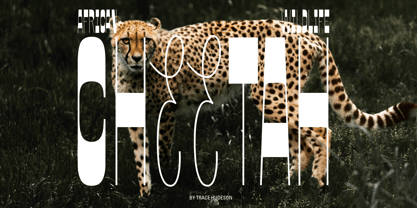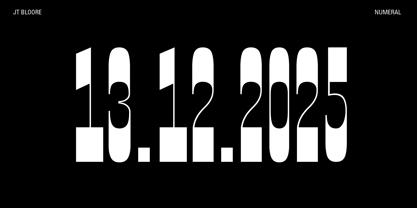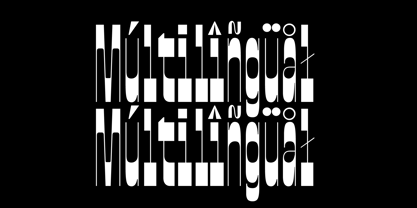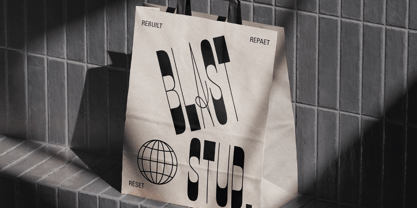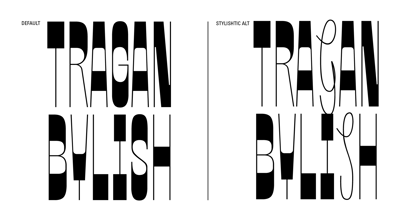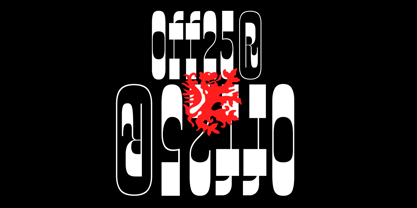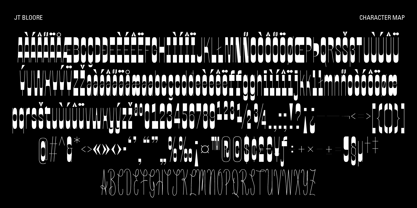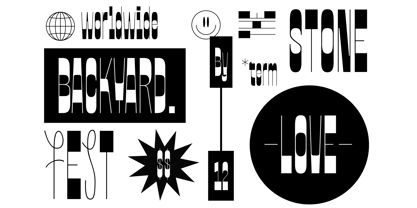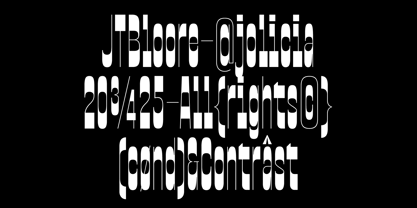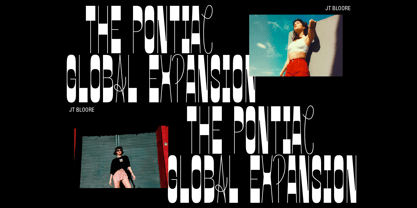
Jt Bloore
by Jolicia Type
The Jt Bloore Font Family was designed by Laire Banyu and published by Jolicia Type. Jt Bloore contains 1 styles. More about this family
JT Bloore is a striking high-contrast reverse sans-serif typeface, meticulously designed with a condensed structure to deliver maximum visual impact. Its sharp vertical tension and narrow proportions make it exceptionally effective for standout headings, bold branding, and expressive editorial layouts. What truly distinguishes JT Bloore is its unique set of thin handwritten-style uppercase alternates, thoughtfully crafted to infuse an unexpected human touch within a robust, modern framework. This intriguing contrast between a rigid structure and subtle handwritten elements creates a distinctive typographic voice—confident, unconventional, and memorable. Ideal for headlines, posters, logos, fashion branding, and experimental design, JT Bloore commands attention while providing creative flexibility through its alternate characters, making it a versatile choice for various design applications.
Designers: Laire Banyu
Foundry: Jolicia Type